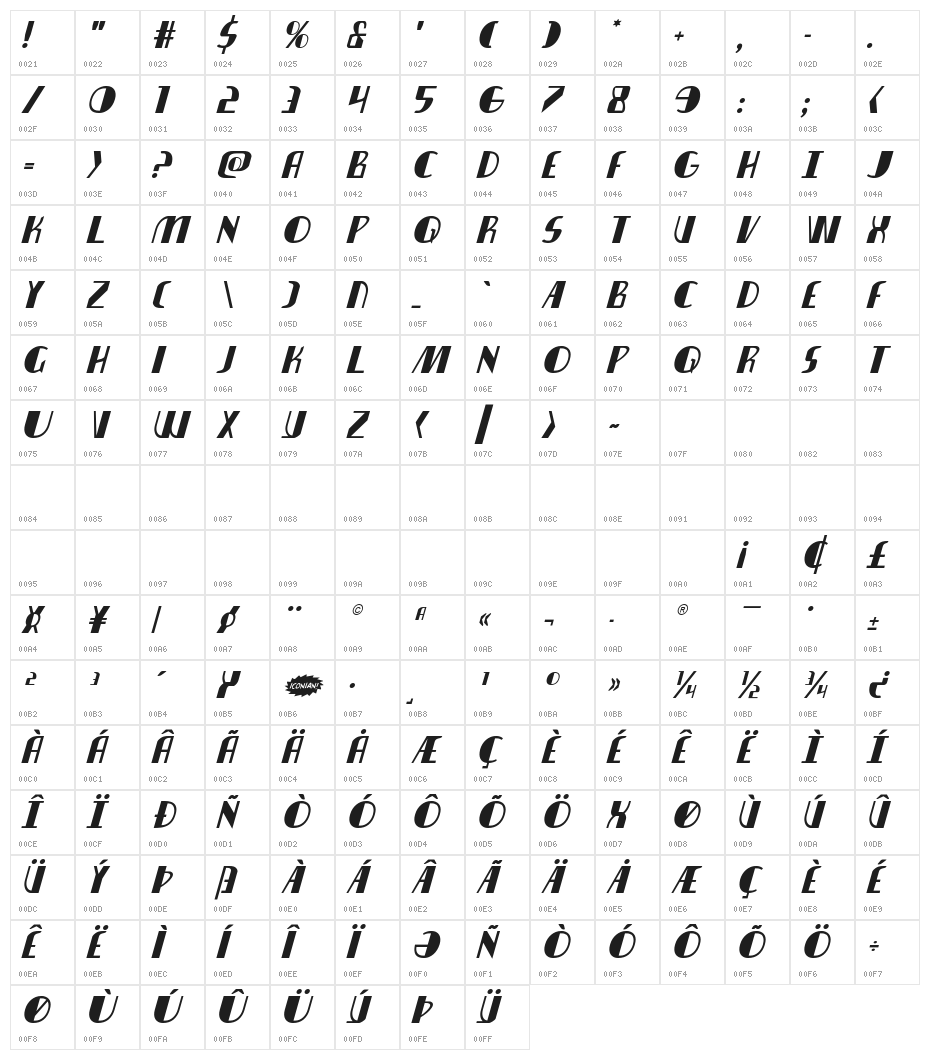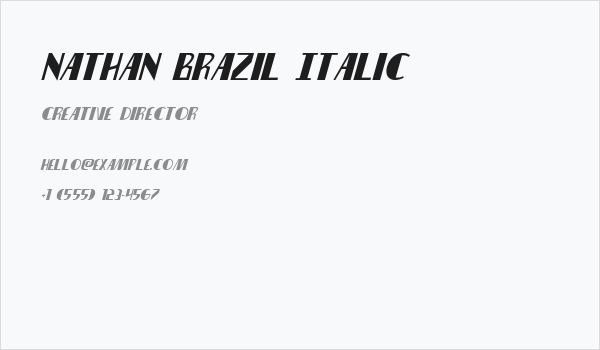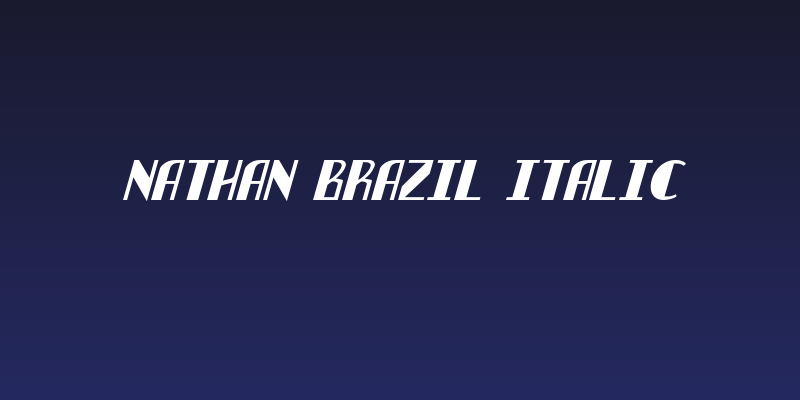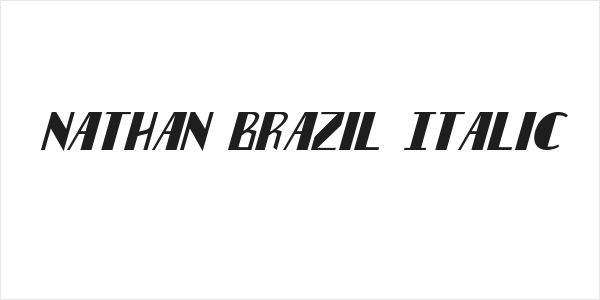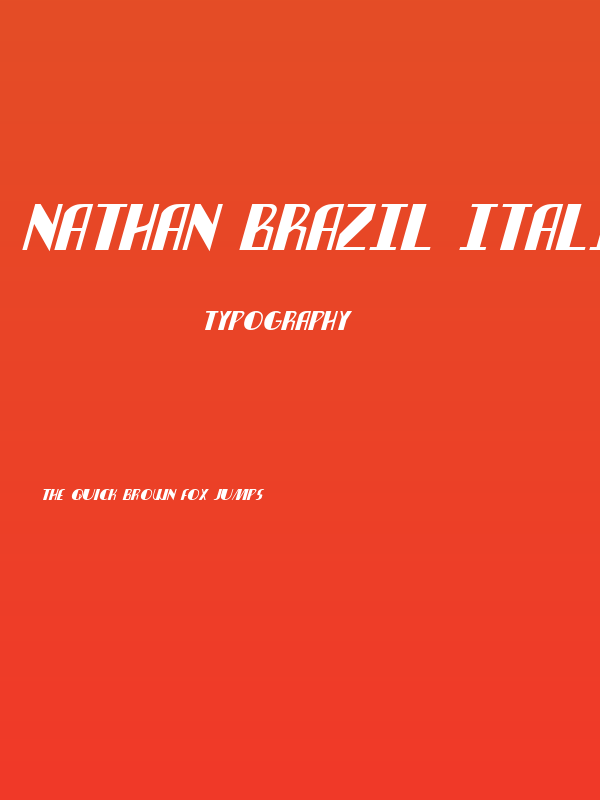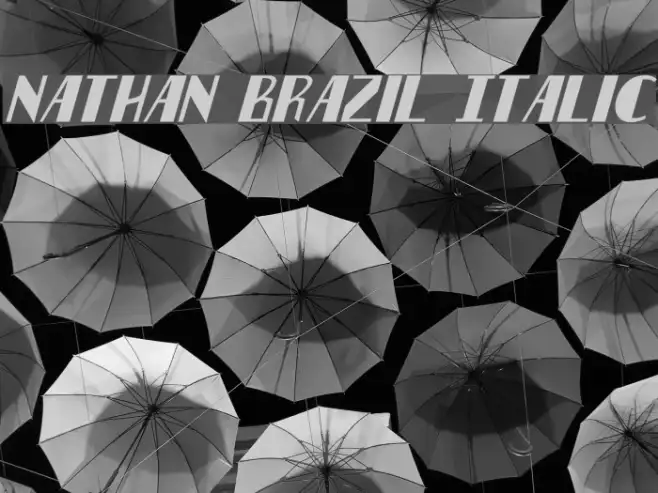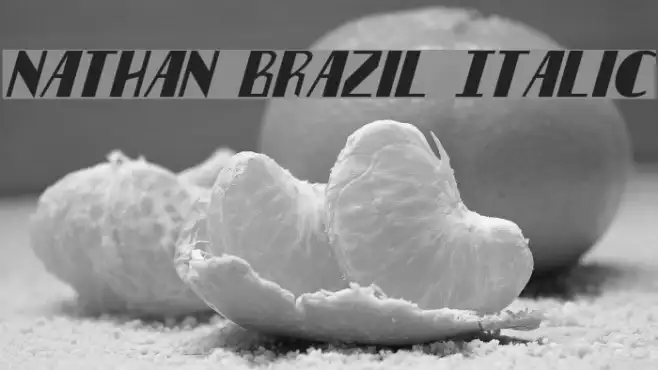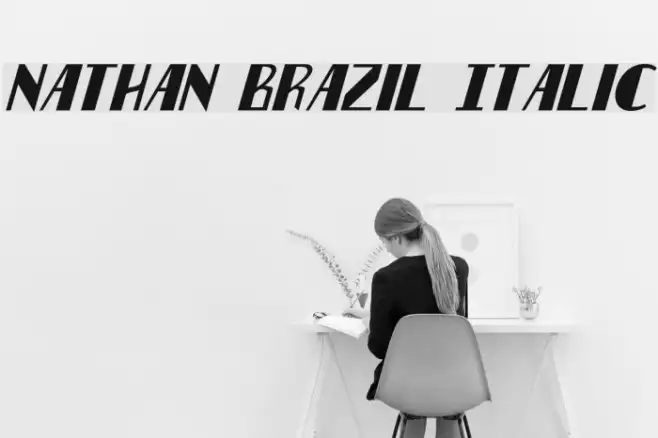
Nathan Brazil Italic Font
Nathan Brazil Italic Description
This font features a bold and dynamic italic style, characterized by its sharp angles and distinct slant. The letters are designed with a strong forward motion, giving a sense of speed and modernity. The uppercase and lowercase letters maintain a consistent style, with wide strokes and a slight curvature that adds a touch of elegance. The numbers are equally bold, ensuring readability while maintaining the font's overall aesthetic. Special characters are crafted with the same attention to detail, making them suitable for various design needs.